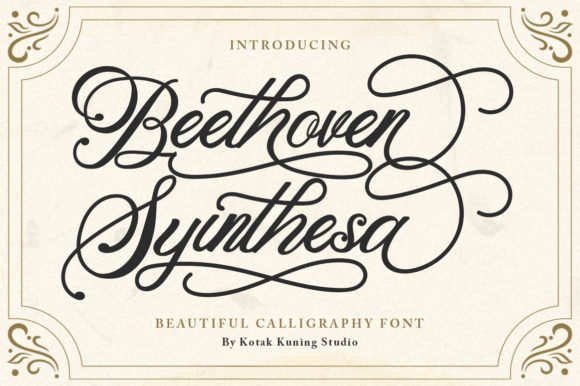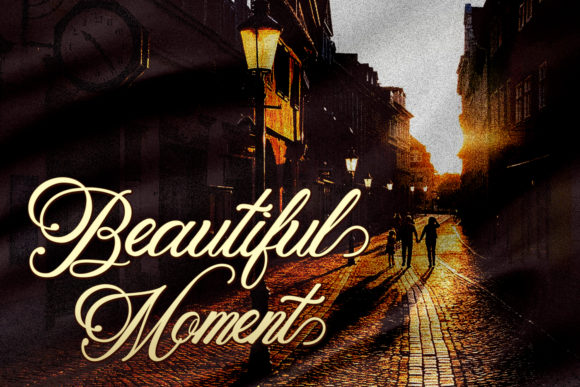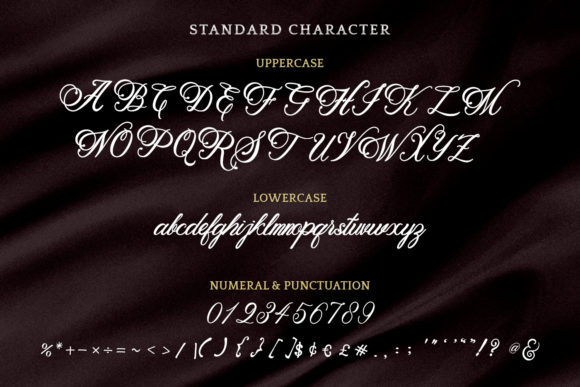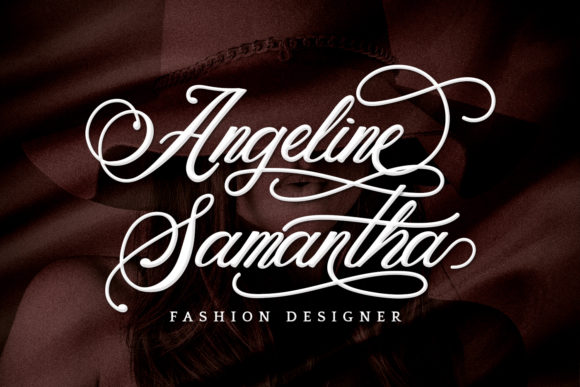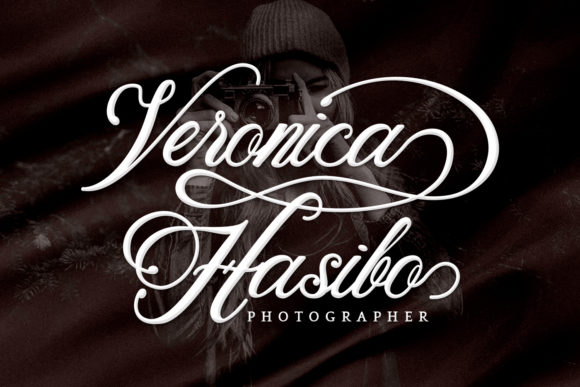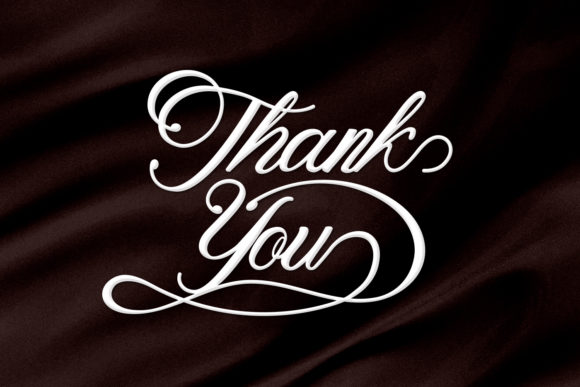
HomeScript FontsBeethoven Syinthesa Font Script Fonts Beethoven Syinthesa Font FacebookXPinterestWhatsApp Beethoven Syinthesa Font Poster 2 Beethoven Syinthesa Font Poster 3 Beethoven Syinthesa Font Poster 4 Beethoven Syinthesa Font Poster 5 Beethoven Syinthesa Font Poster 6 Beethoven Syinthesa Font Poster 7 Beethoven Syinthesa Font Poster 8 About Beethoven Syinthesa Font Beethoven Syinthesa is a beautiful script with a classical feel. Get inspired by its bold swashes! DOWNLOAD NOW People also explored Vronterm Font Nueve Bold Font Bella Sweety Font Summer Love Font Grade 5 Font Nueve Extra Black Font Havel White Font Spider Font Just Imagine Font 357 0 TagsBeethoven Syinthesa Font Previous articleOkuland FontNext articleBelly Betty Font LEAVE A REPLY Cancel reply Comment: Please enter your comment! Name:* Please enter your name here Email:* You have entered an incorrect email address! Please enter your email address here Website: Save my name, email, and website in this browser for the next time I comment. Personal Use Free Adelia Font Personal Use Free Read more about this font Hunters Personal Use Free Read more about this font Lollipop Melody Personal Use Free Read more about this font Child Witch Personal Use Free Read more about this font BLOG Using Fonts in Digital Marketing: Tips to Strengthen Your Brand Identity In the realm of digital marketing, every visual element plays a crucial role in shaping a brand's identity, and fonts are no exception. The... Best Fonts for T-Shirt Design – Top 2025 Picks Top 7 Google Fonts Alternatives for Faster and Privacy-Friendly Web Design (2025) 5 Fonts That Will Dominate Design Trends in 2026